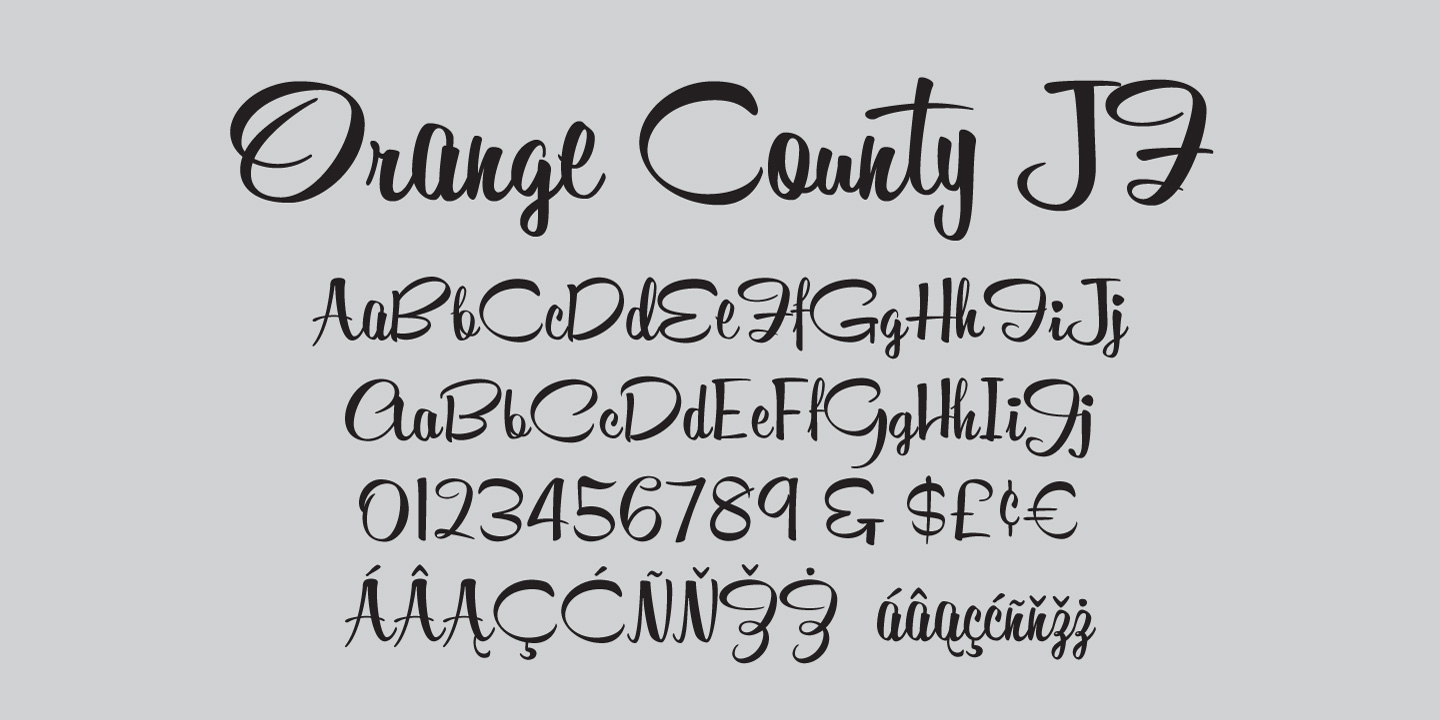
If you’re looking for a fresh and lively display font, Orange County JF Font Free Download brings a vibrant, youthful vibe to your designs. Its bold and playful letterforms make it perfect for posters, branding, social media graphics, and any creative project that needs a burst of energy.
Orange County JF Font Free Download combines fun and readability, giving your text a unique personality that stands out in both print and digital media. Whether you’re targeting a young audience or aiming to add some flair to your visuals, this font delivers with style.
Ideal for lifestyle brands, entertainment, and creative agencies, Orange County JF adds a dynamic and approachable touch to your projects.
In summary, Orange County JF Font Free Download is a bold, playful font ready to energize your designs. Try it free for testing, then secure the license for commercial use.